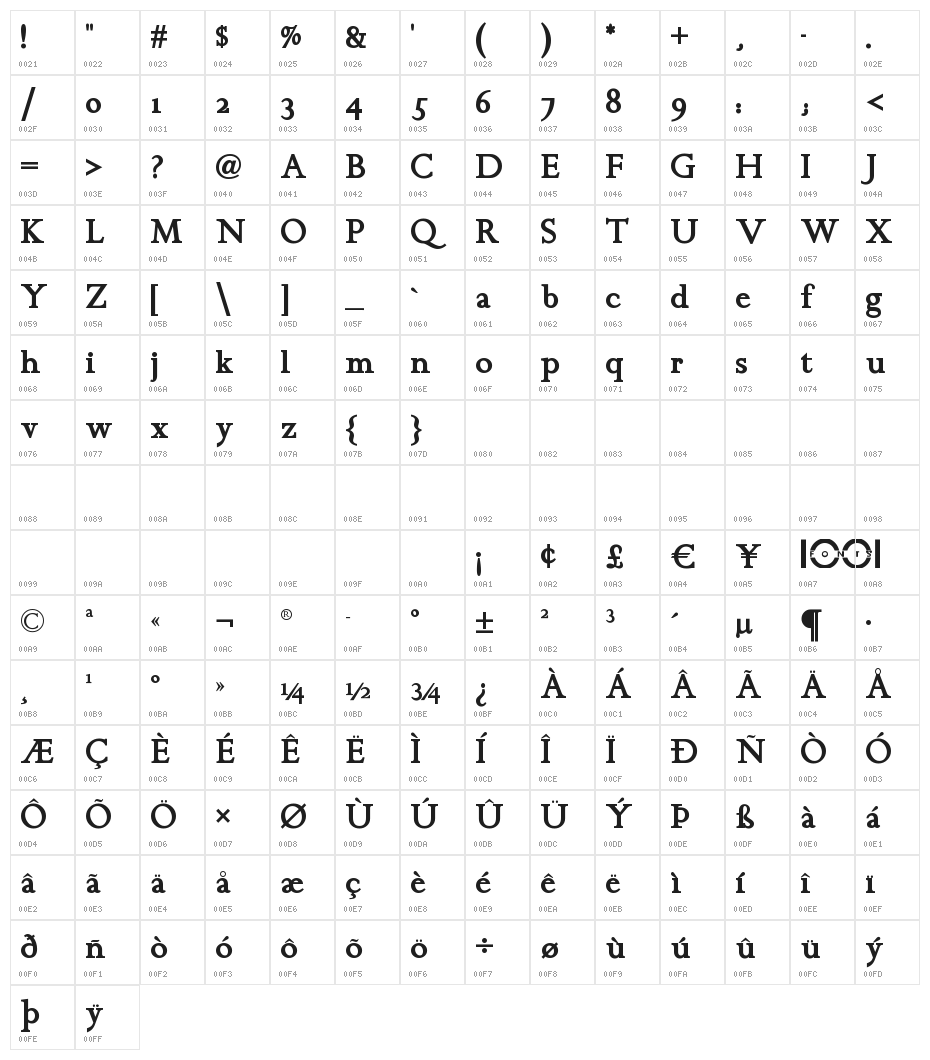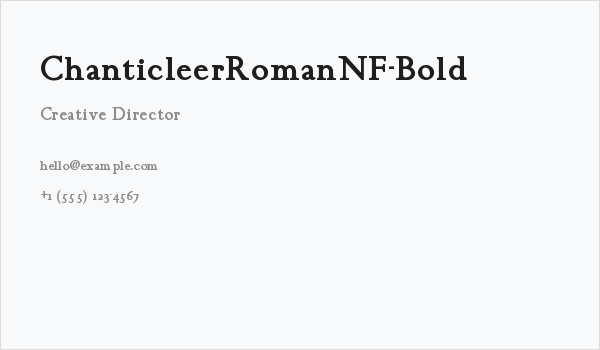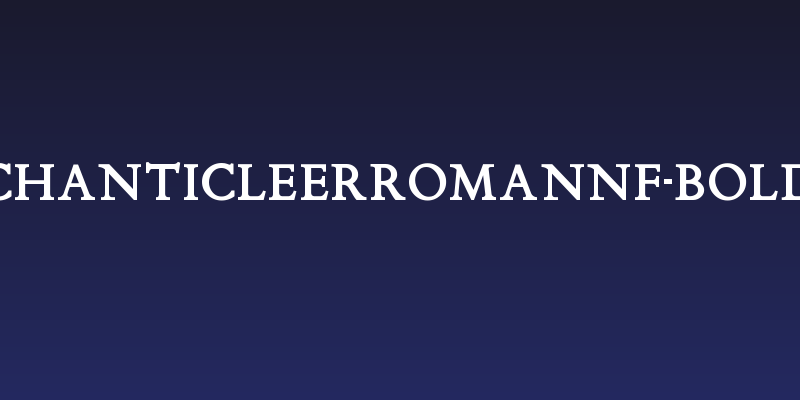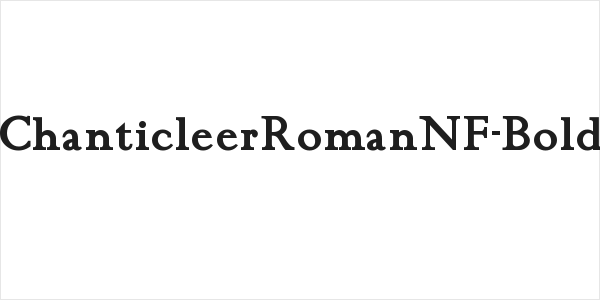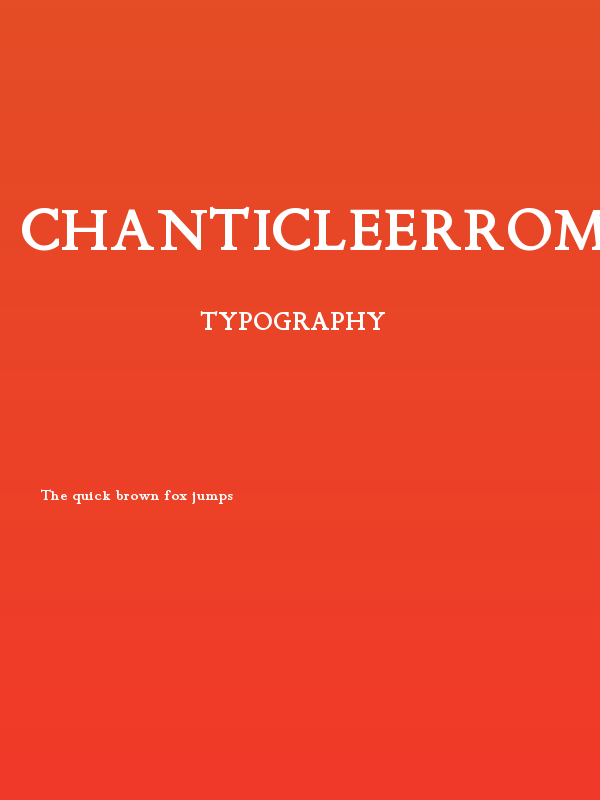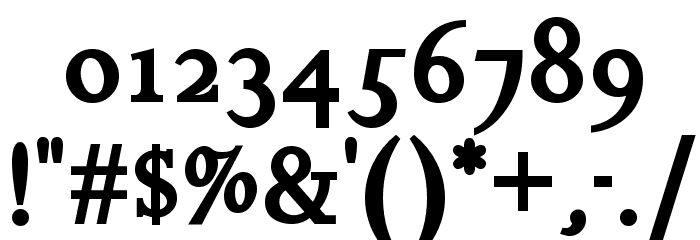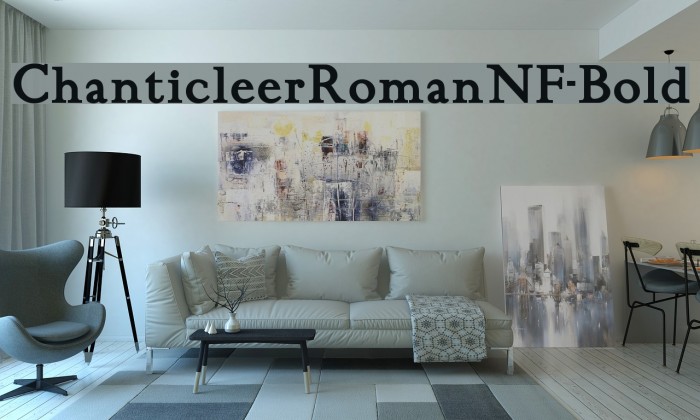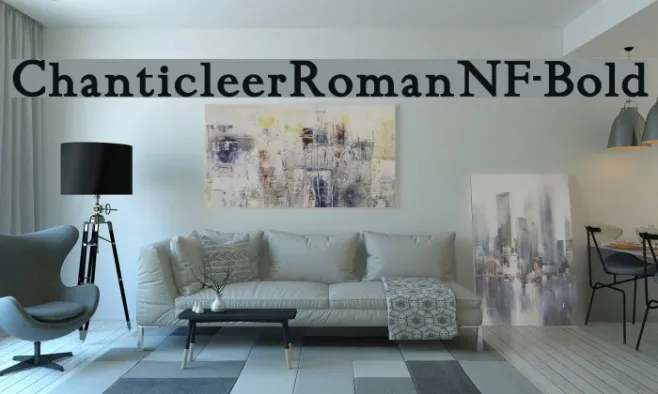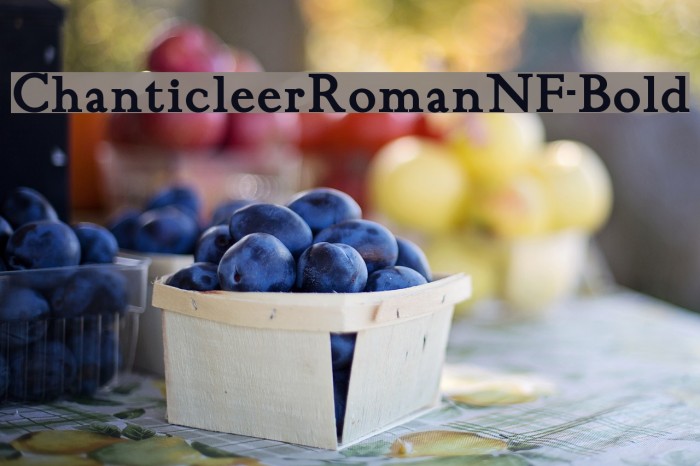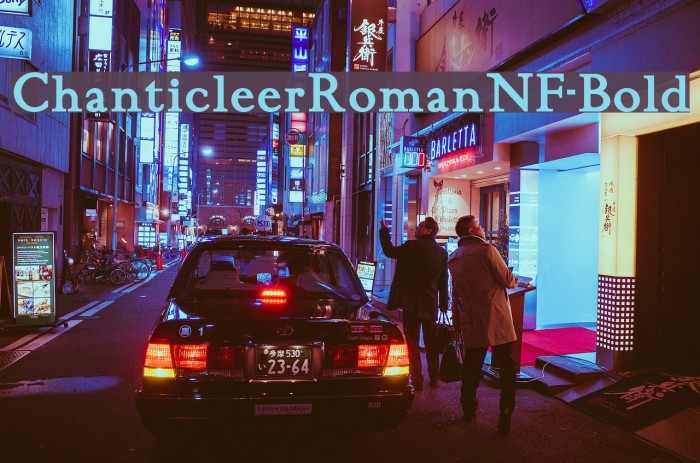
ChanticleerRomanNF-Bold Font
ChanticleerRomanNF-Bold Description
This font exhibits a classic serif style with bold, prominent strokes that convey a sense of tradition and authority. The serifs are well-defined, adding a touch of elegance and readability. The uppercase letters are stately and commanding, while the lowercase letters maintain a consistent and harmonious flow. The numerals are clear and robust, ensuring legibility. Special characters are crafted with precision, maintaining the overall aesthetic. This font is versatile, suitable for both formal and creative applications, making it ideal for projects that require a touch of sophistication.